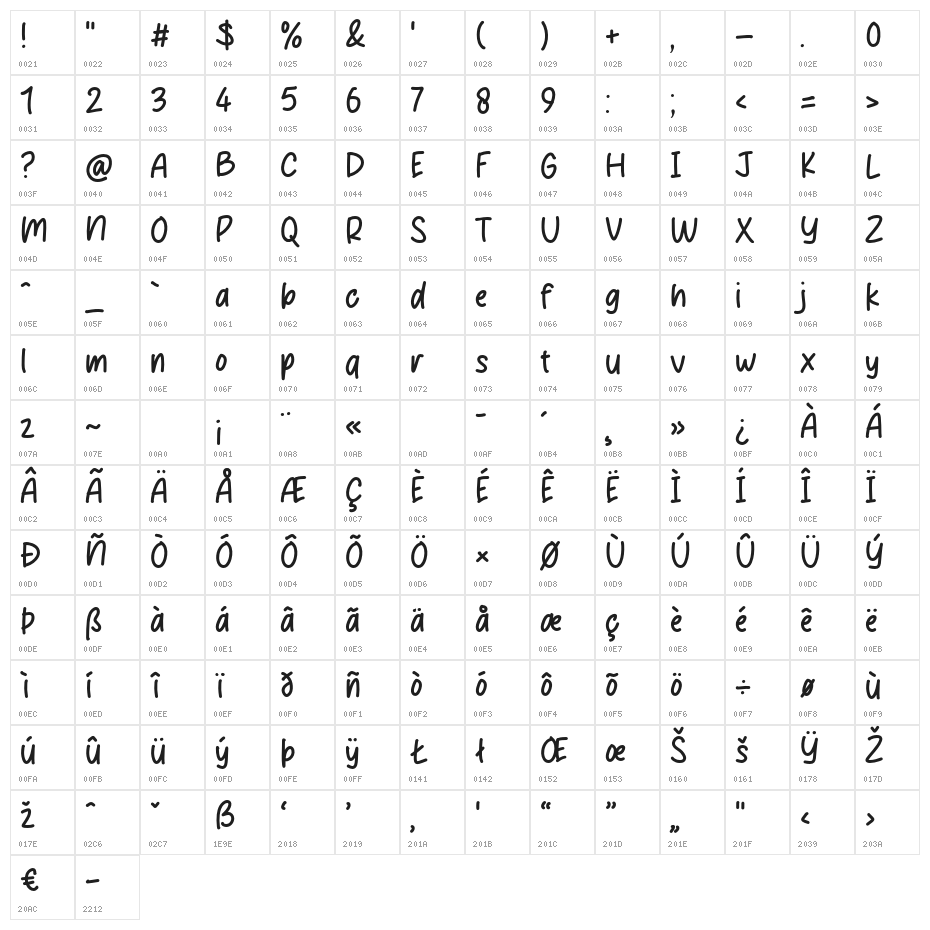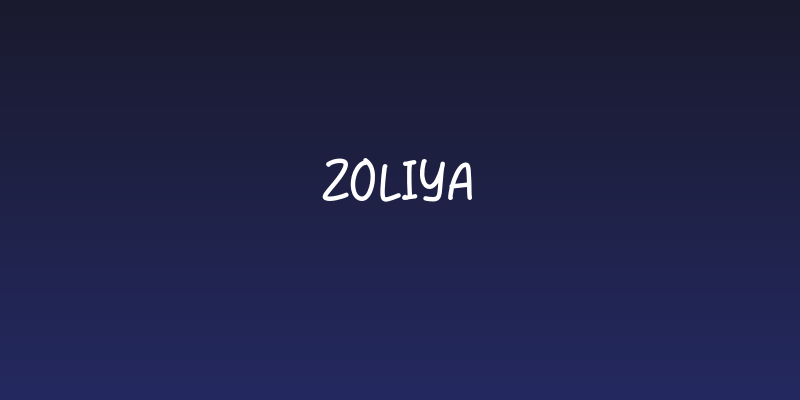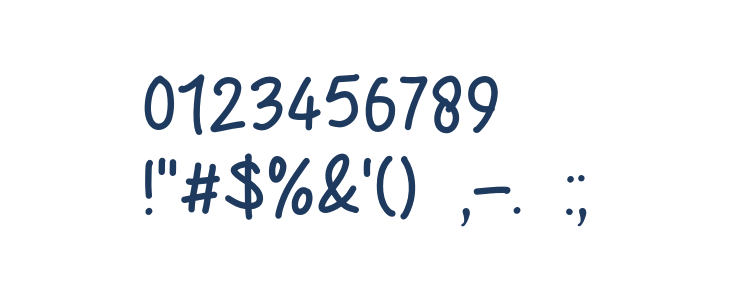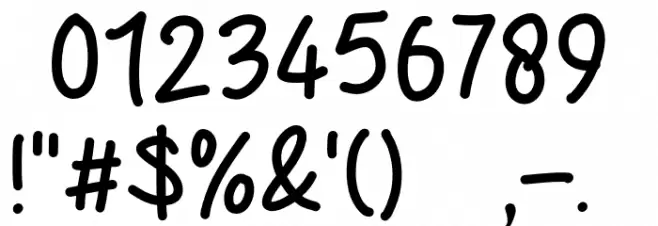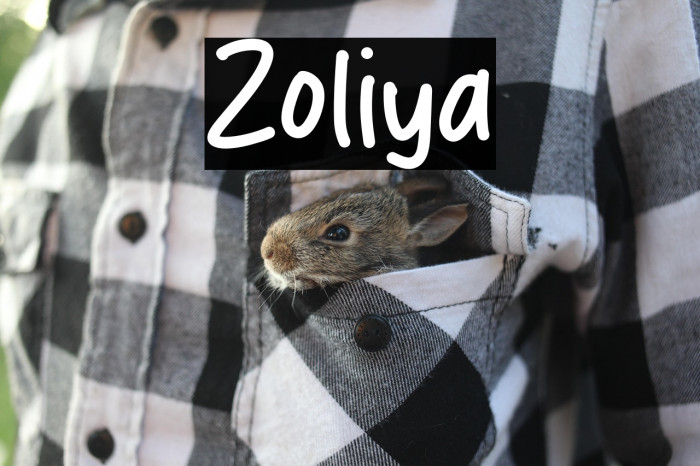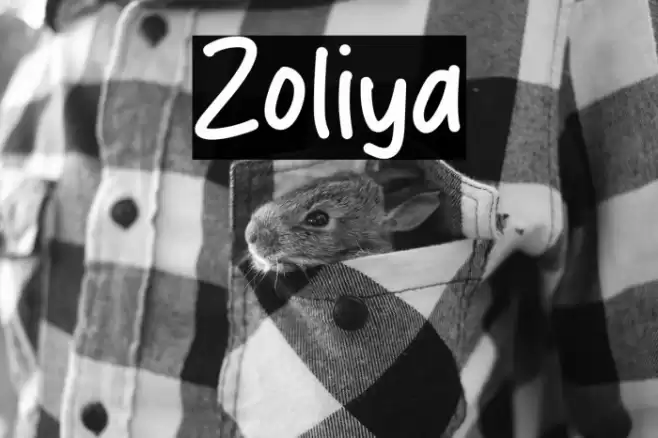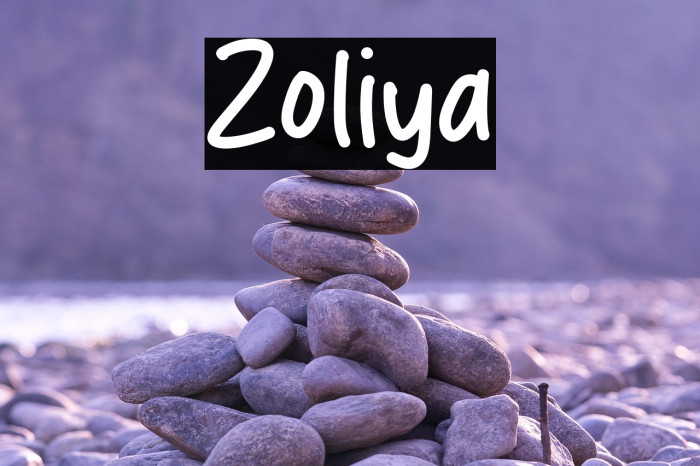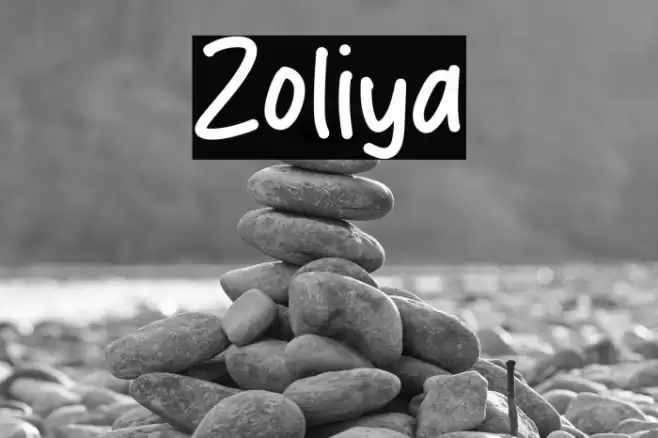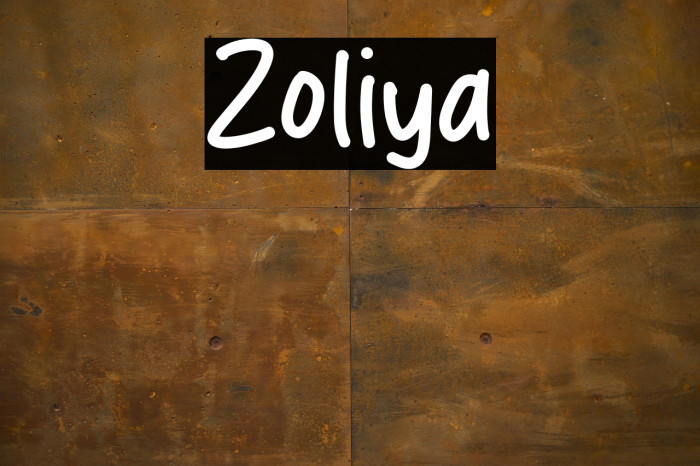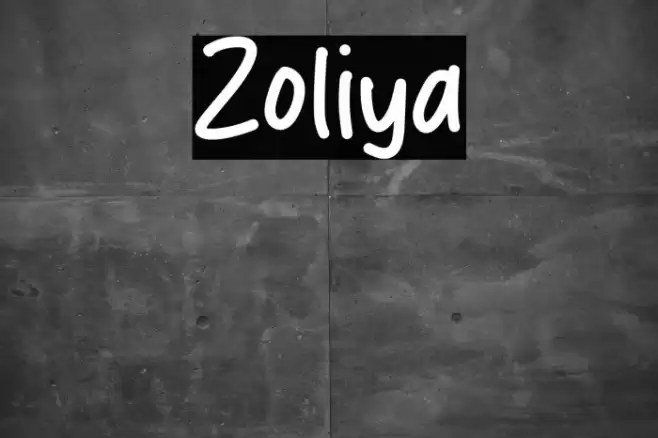
Zoliya Font
Zoliya Description
This font features a playful and casual handwritten style, characterized by its smooth curves and slightly irregular letterforms. The uppercase and lowercase letters maintain a consistent flow, giving it a friendly and approachable appearance. The numerals and special characters are designed to complement the overall style, ensuring readability and coherence. Its informal nature makes it suitable for projects that require a personal touch, such as greeting cards, invitations, or playful branding. The font's design is versatile, allowing it to be used in both digital and print media, while its clear legibility ensures it remains effective across various sizes.
| Use Case | Headlines, Logos, Informal text |
| Proposed Projects | Greeting cards, invitations, playful branding, personal blogs, children's books. |